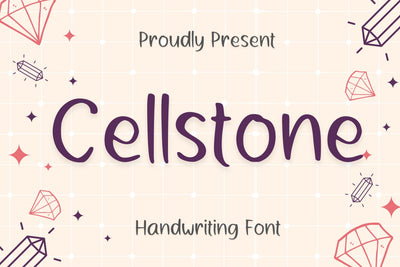
Cellstone Font
Cellstone is a smooth and friendly Handwriting font. Its casual and joyful style makes it appear wonderfully down to earth, readable and, ultimately, incredibly versatile.